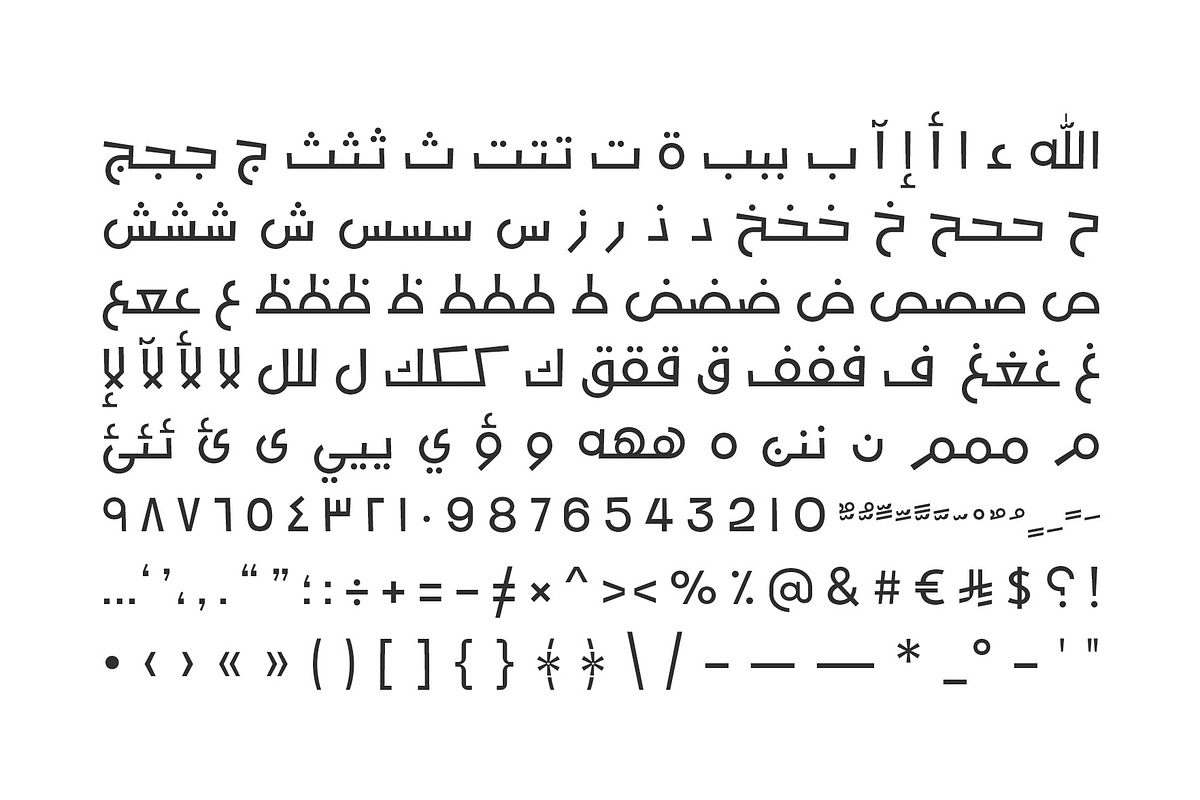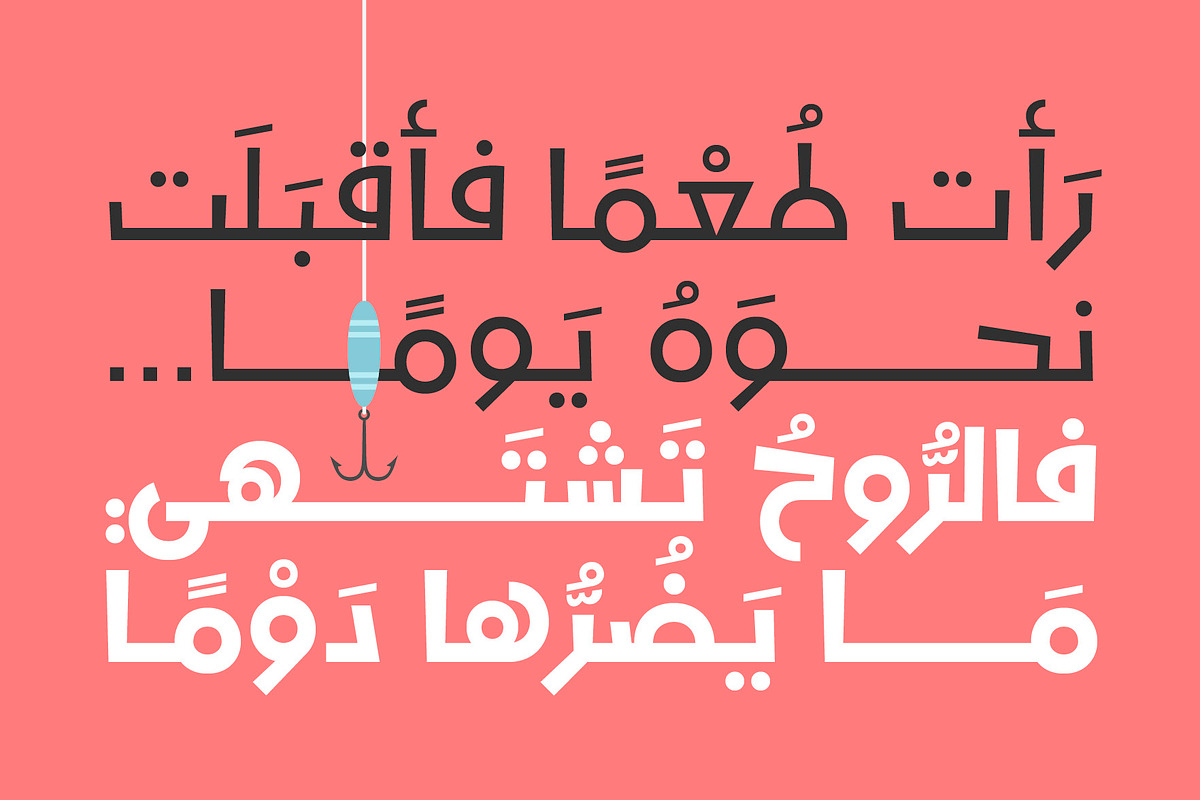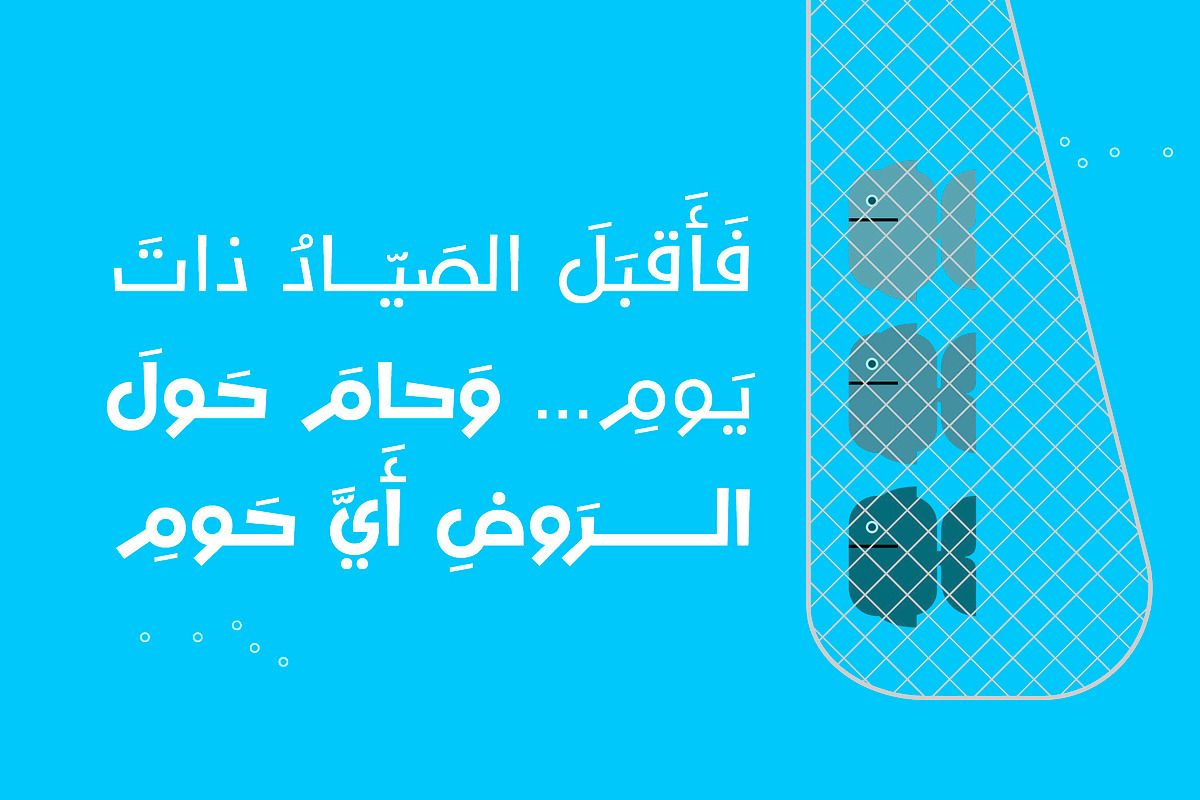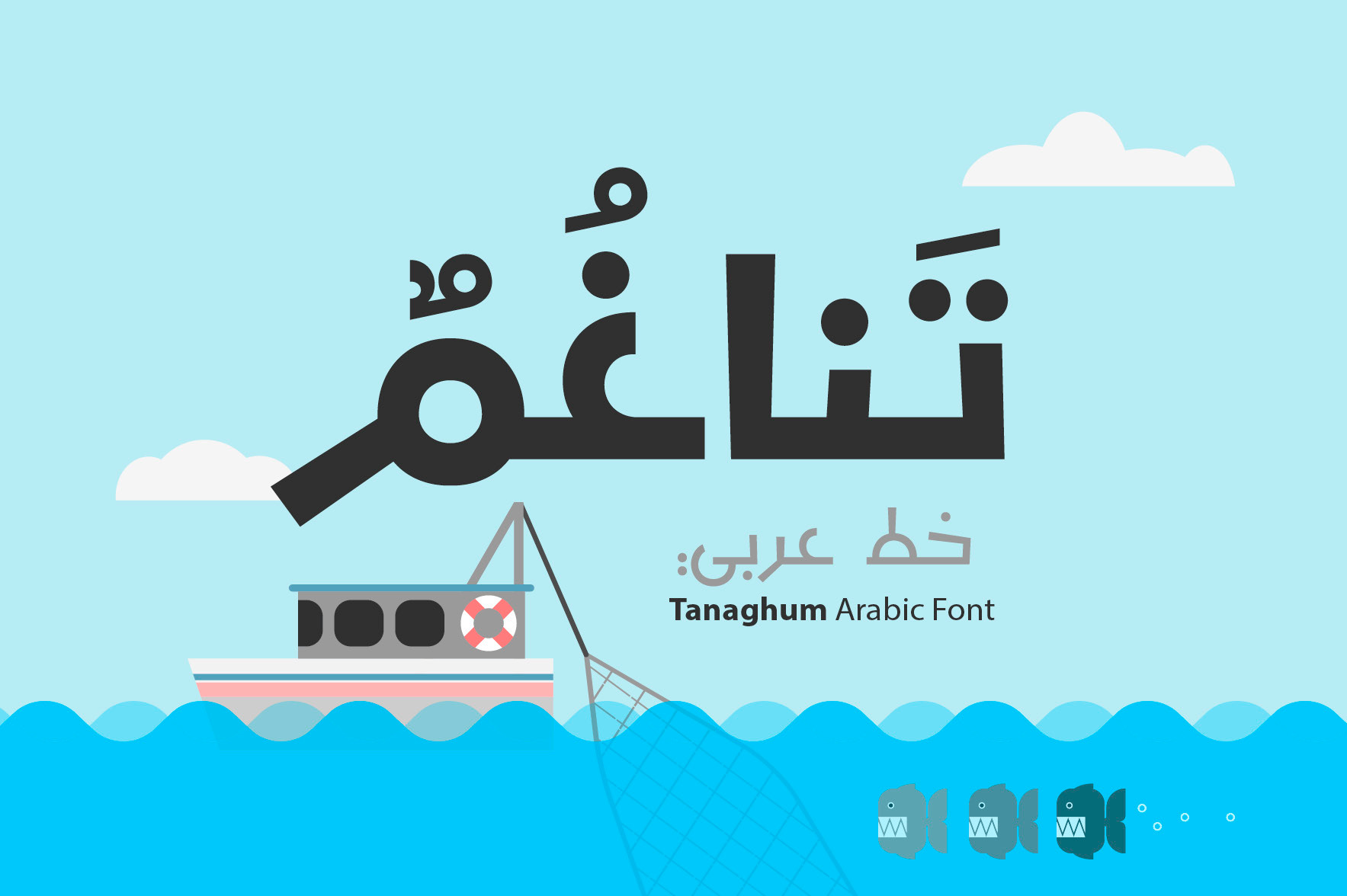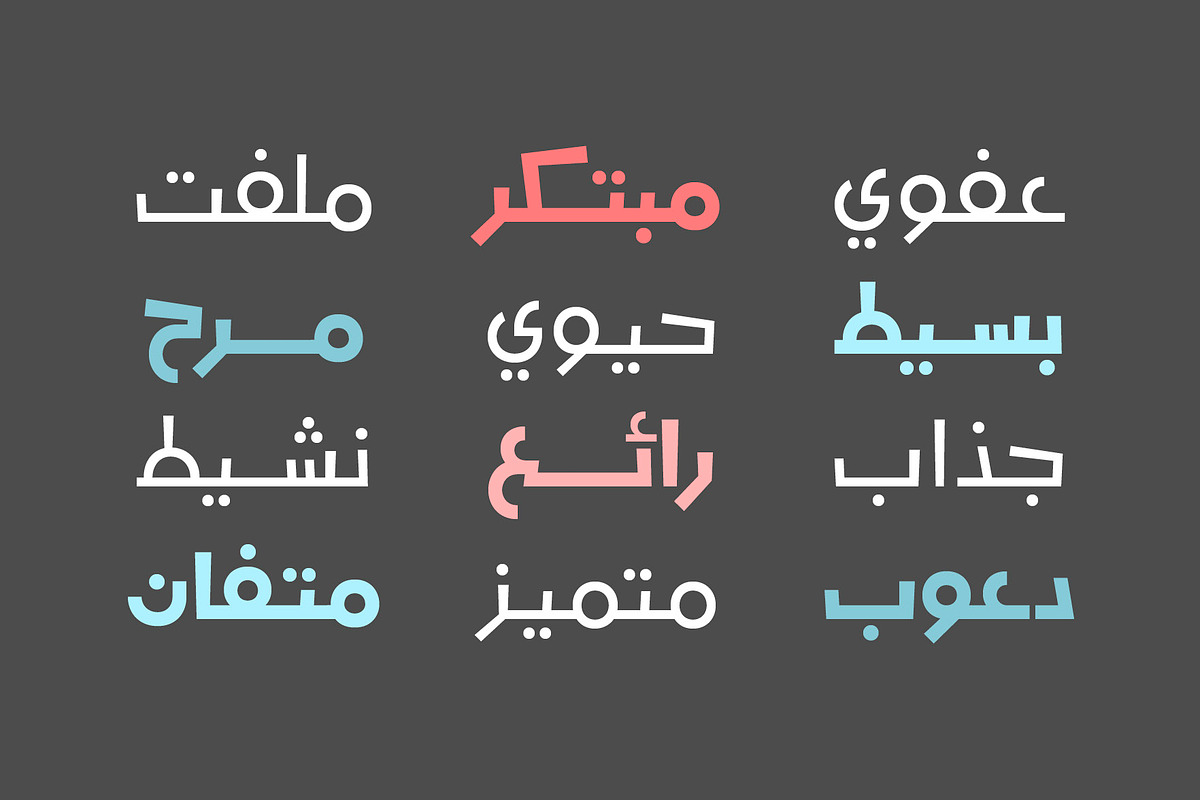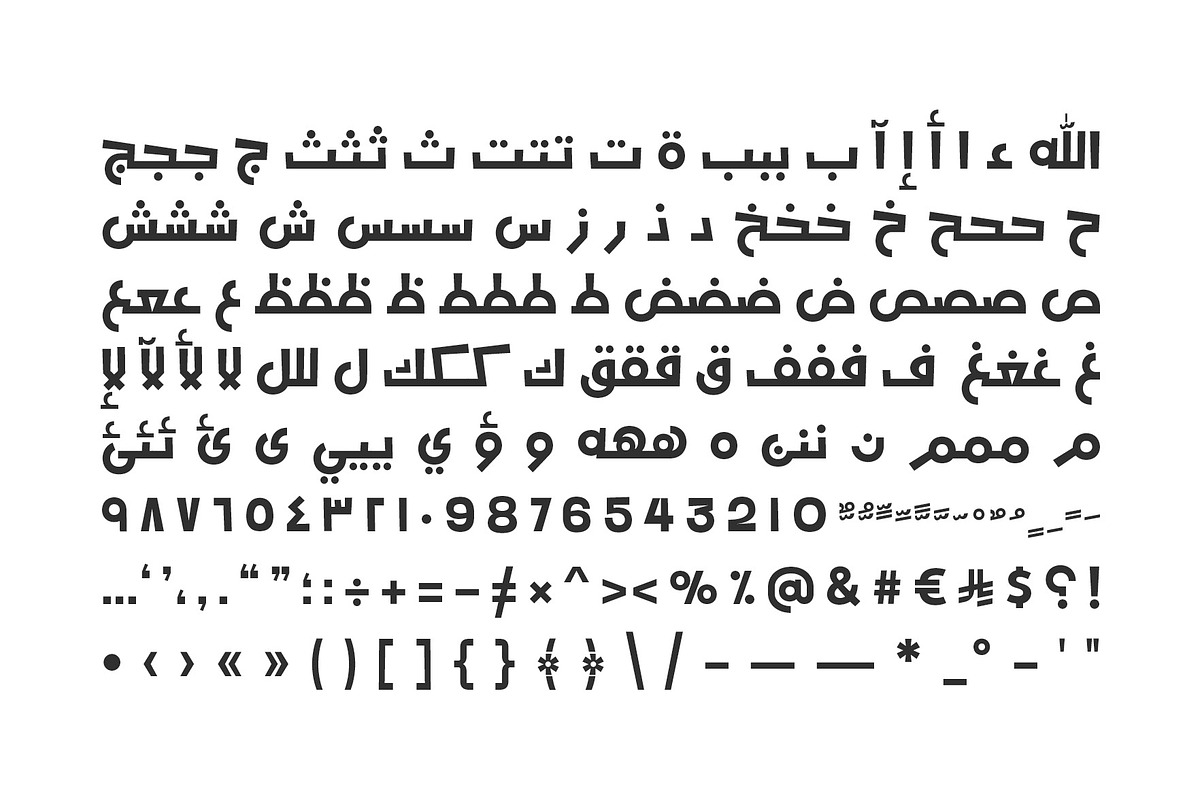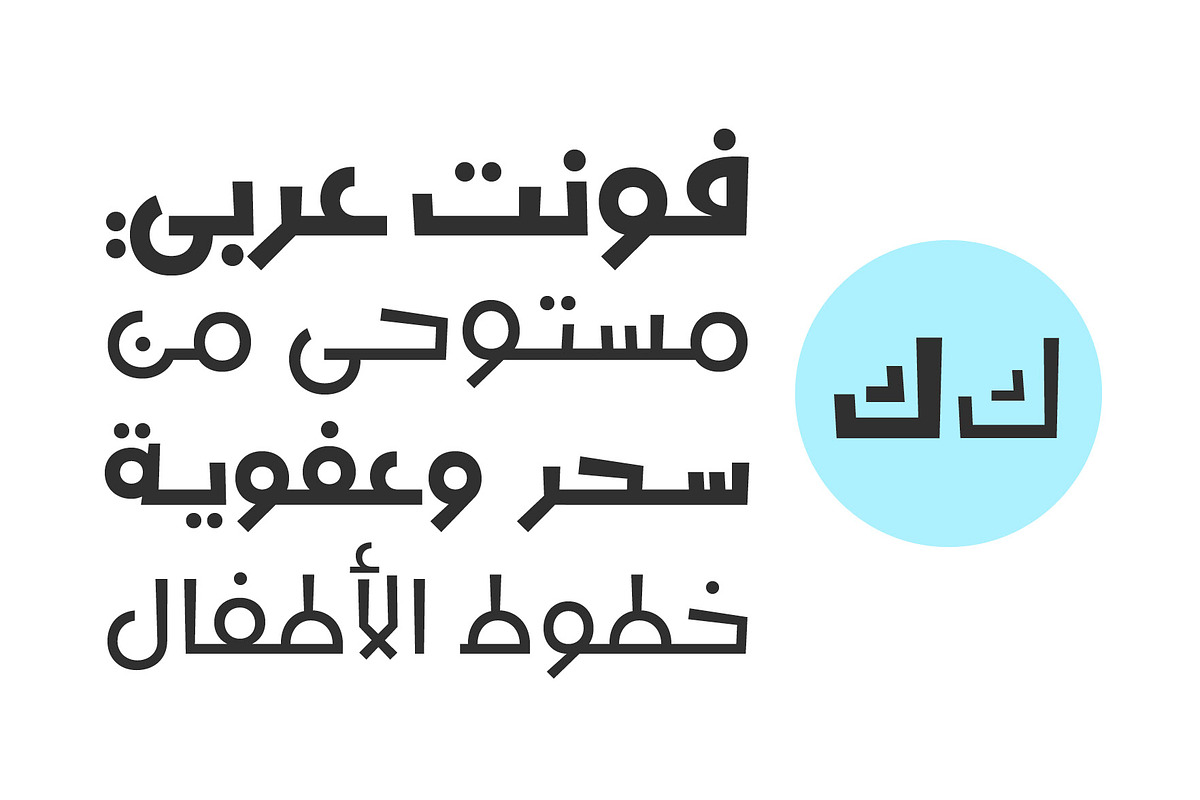
Tanaghum - Arabic Font
Tanaghum (the Arabic for 'Harmony') is an Arabic display font inspired by the spontaneous charm of children's handwriting, thoughtfully refined to meet the demands of contemporary design. The letterforms carry a warm, organic quality; rounded, expressive, and naturally flowing, while maintaining the structural clarity needed for modern visual applications.
Tanaghum is suitable for a wide range of creative projects where a friendly, approachable tone is desired, including children's content, food and lifestyle branding, social media visuals, app interfaces, and editorial design. It supports Windows, macOS and mobile applications.